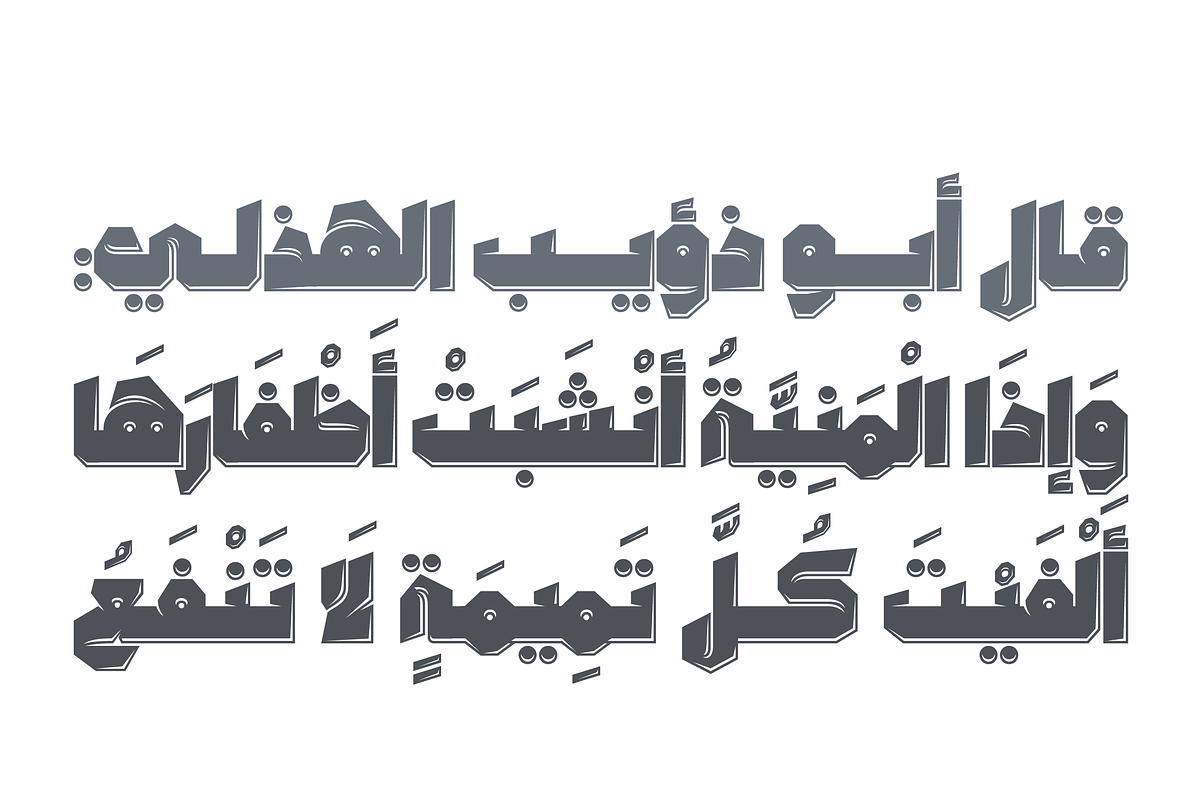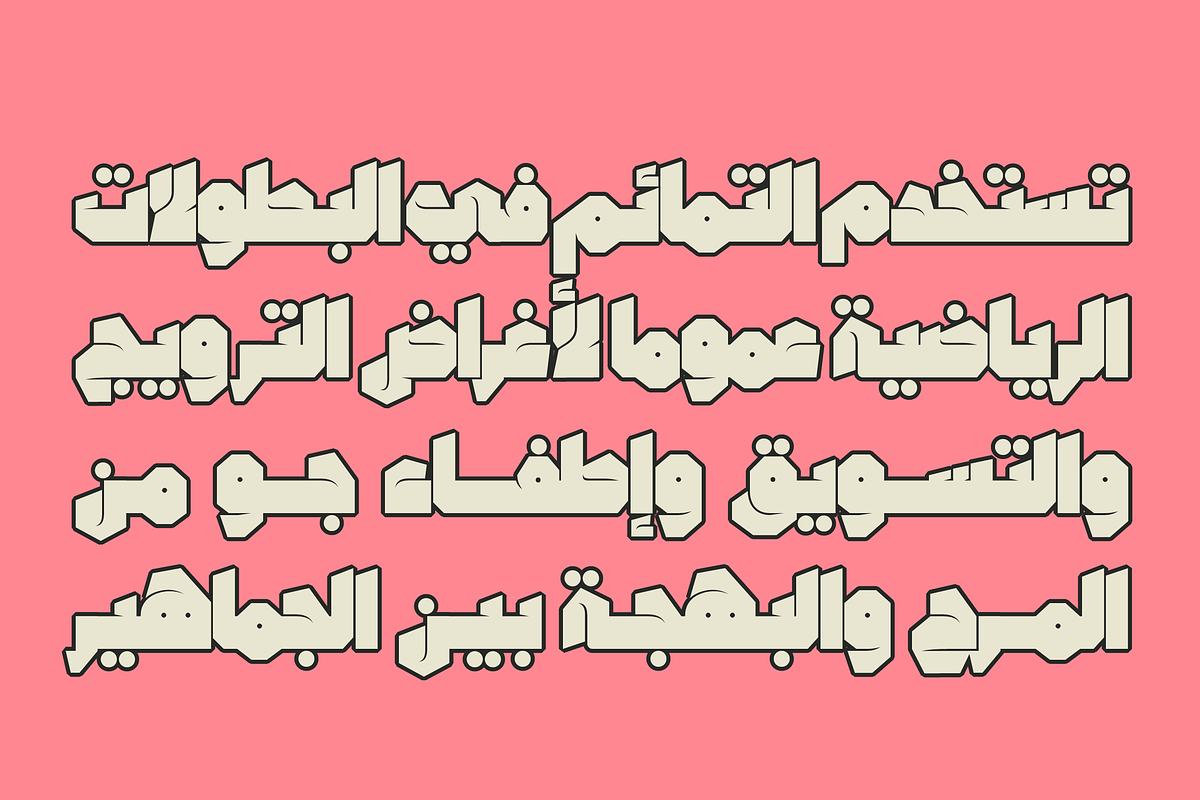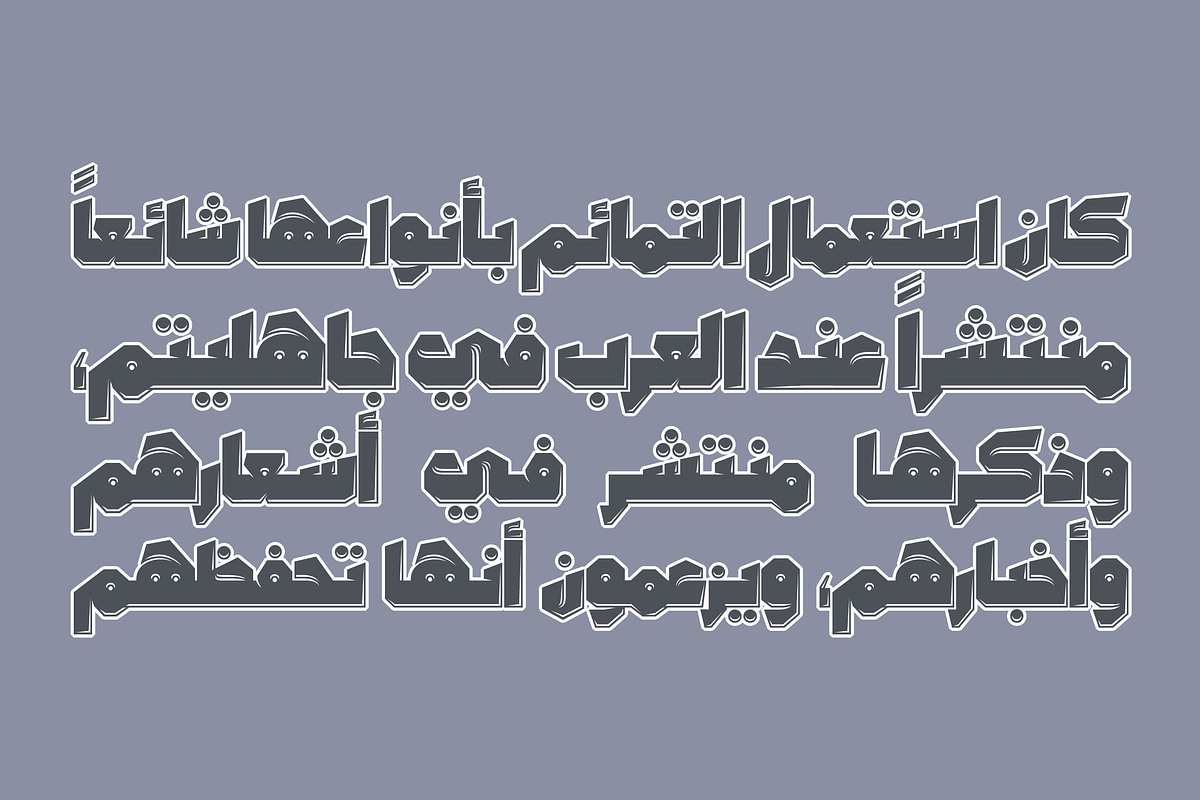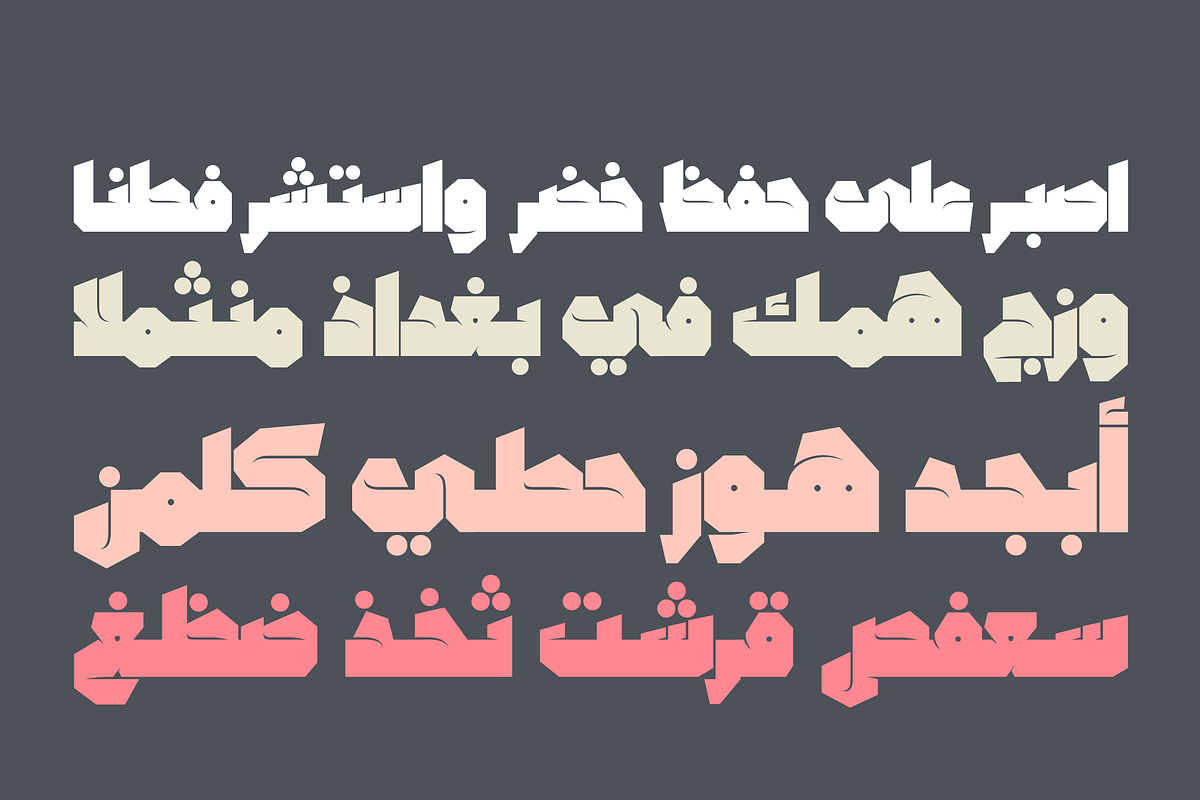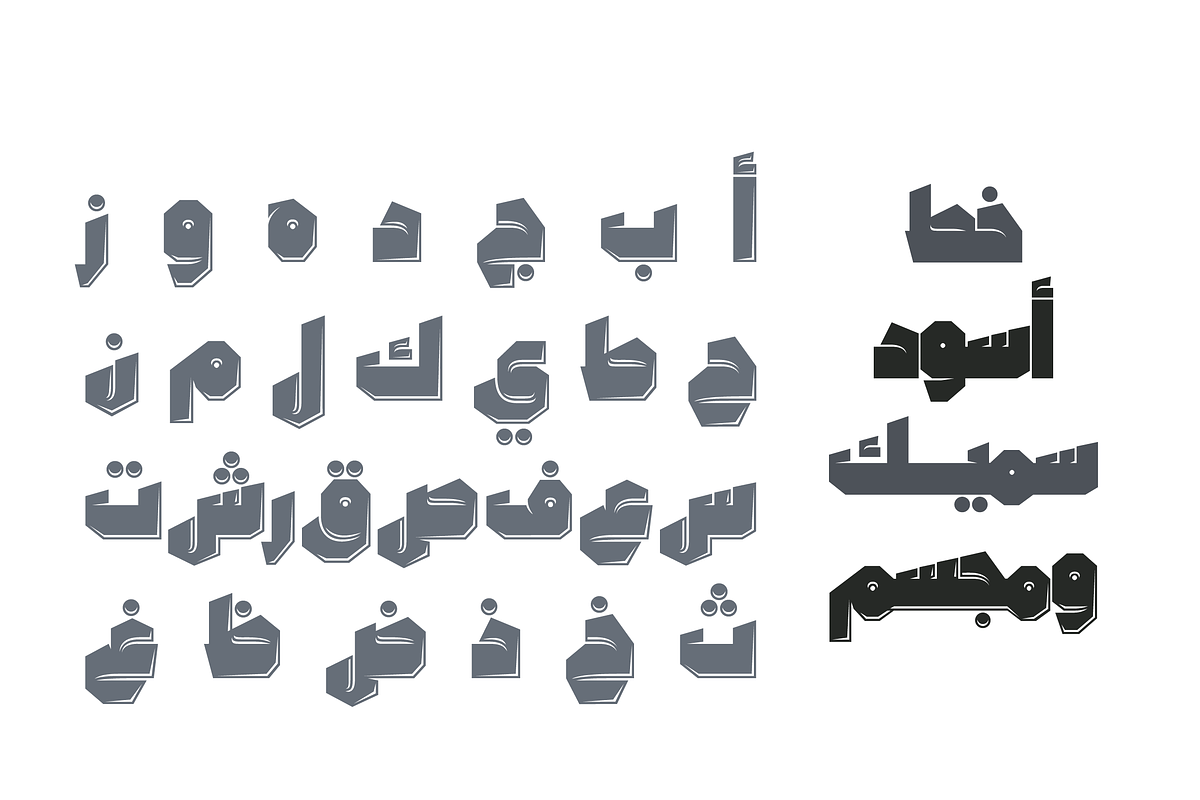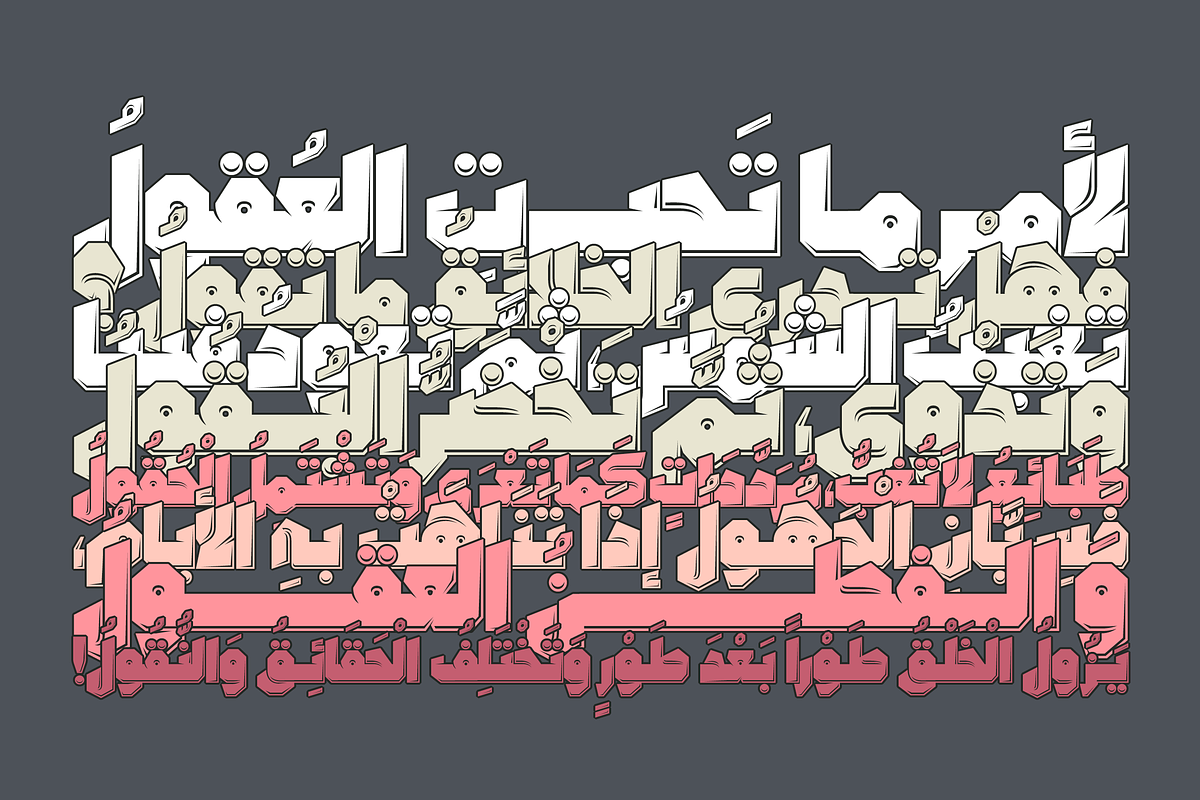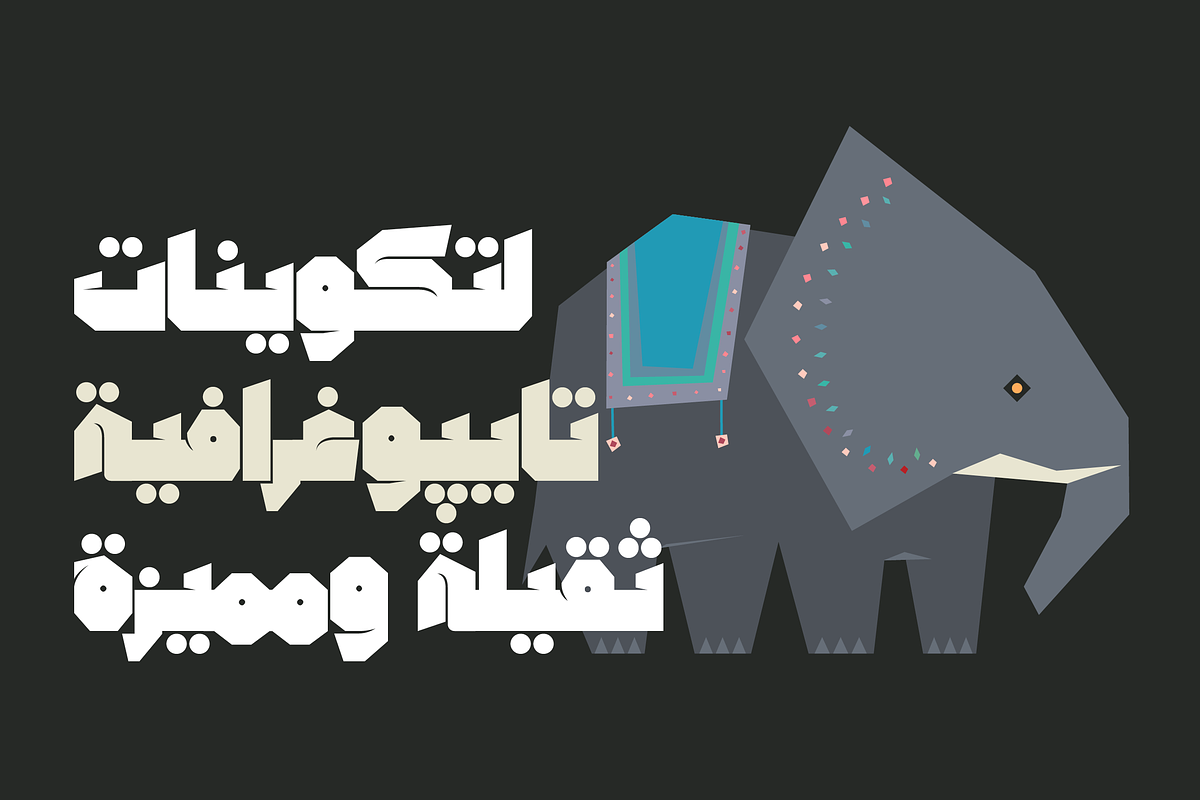
Tamema - Arabic Font | خط تميمة
The word Tamema is the Arabic for Mascot or Amulet. Tamema is an Arabic display font with a heavy structure that suits creative titles. Tamema comes in two styles (Black and Embossed), and it supports web, print and mobile applications.
- Tamema Black
- Tamema Embossed
Tamema - Arabic Font | خط تميمة by Mostafa El Abasiry fits naturally into Branding, posters, packaging, typography.